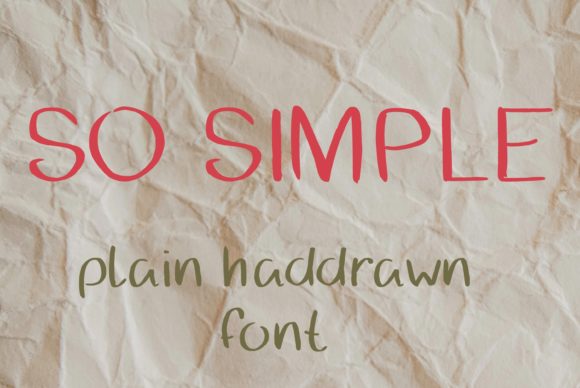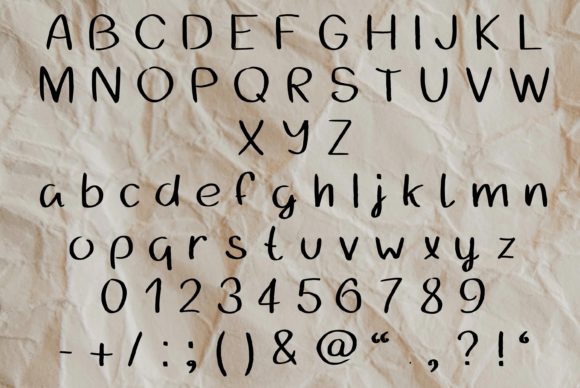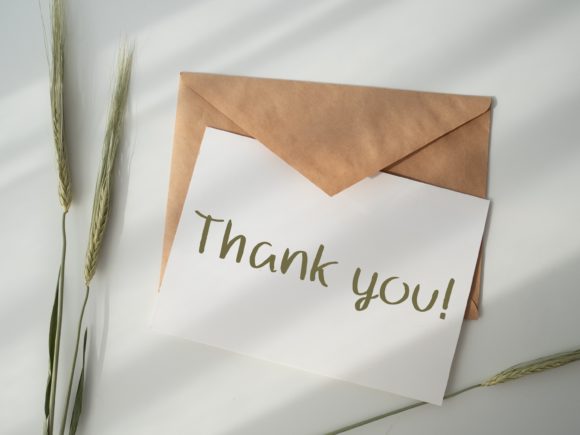
So Simple Font
About So Simple Font
Introducing So Simple, a neat and adaptable handwritten font designed to bring simplicity and versatility to your creative projects. Perfect for product packaging, branding projects, magazine covers, social media graphics, weddings, or any context where a clean and expressive handwritten style is desired.
So Simple’s appeal lies in its neat and adaptable nature, making it suitable for a wide range of applications. Whether you’re working on branding materials, social media graphics, or adding a personal touch to wedding invitations, this font seamlessly blends simplicity with a unique handwritten charm.
For product packaging, So Simple becomes a defining element in creating a visually appealing and cohesive brand identity. The font’s neat design adds a touch of modernity, ensuring your products stand out with a clean and approachable aesthetic.
In branding projects, So Simple contributes to a contemporary and fresh visual language. Its adaptability allows it to complement various styles and industries, providing a clean and stylish script that resonates with modern audiences.
Magazine covers benefit from the clean and neat style of So Simple, creating a modern and minimalist typography choice. The font’s readability ensures that text is easily legible while maintaining a fresh and attractive appearance.
On social media, So Simple adds a touch of sophistication to graphics and posts. Its adaptable handwritten style is engaging and modern, making it suitable for creating visually appealing content that resonates with your audience.
Wedding materials benefit from So Simple’s versatile script, allowing you to strike a balance between elegance and simplicity. Whether used for invitations or other design elements, the font enhances the overall aesthetic with a clean and contemporary look.
So Simple is more than just a font; it’s a versatile design tool that brings a neat and adaptable handwritten style to a variety of creative projects. Embrace the simplicity and modernity of So Simple as you confidently incorporate it into your designs, allowing your projects to express words above the background with a clean and stylish script.